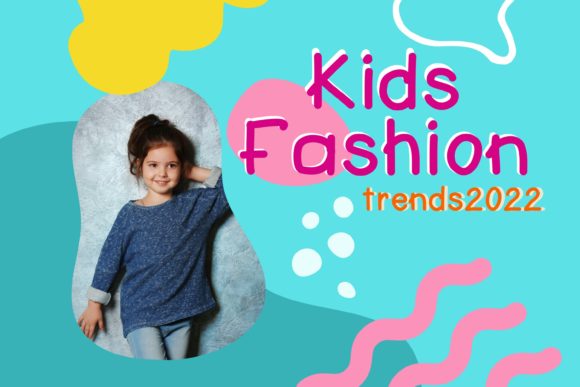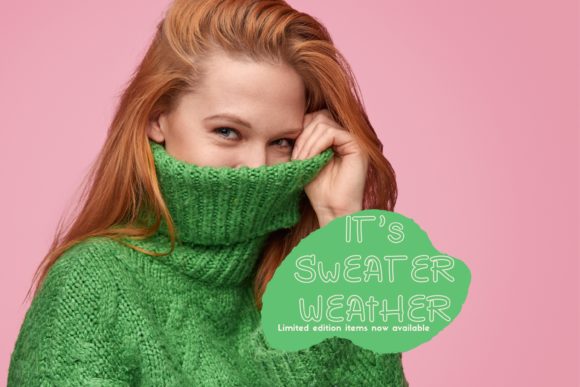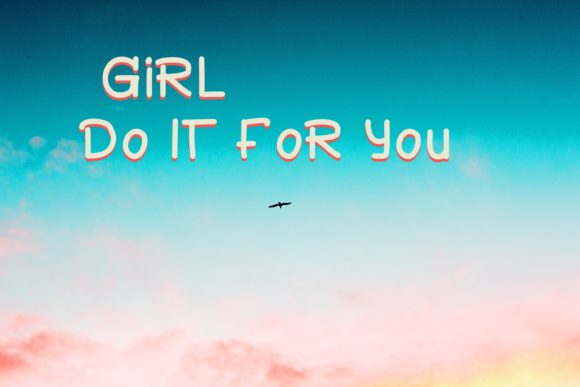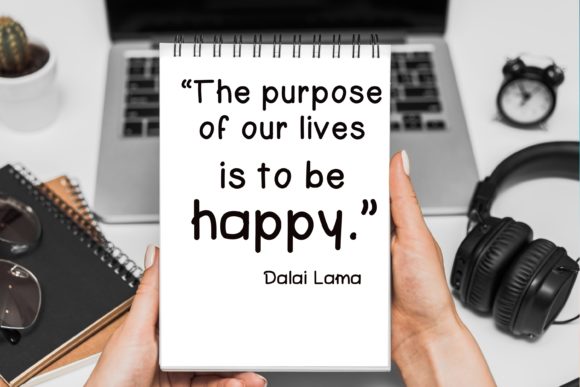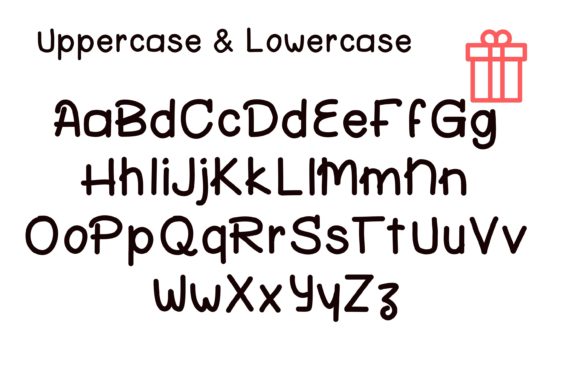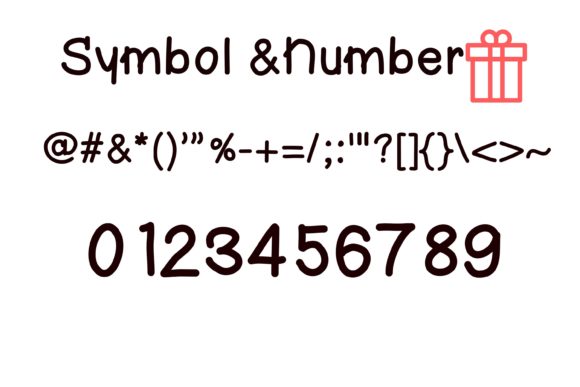
Almond Cookies Font
About Almond Cookies Font
Almond Cookies is a cute and simple lettered handwritten font that can be used for all chalkboard quotes or teaching material! Its authentic look will add a personal and realistic feel to your designs.